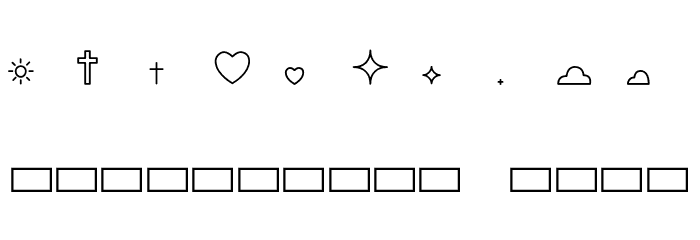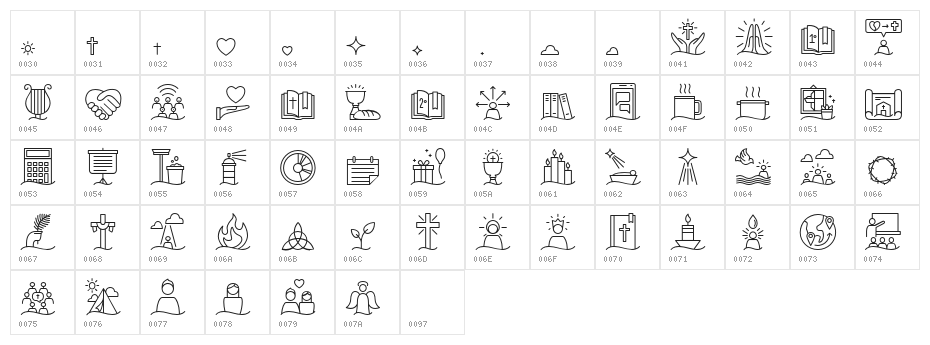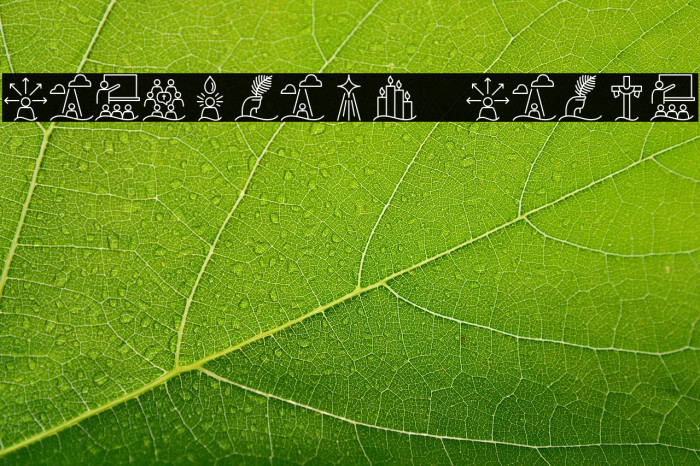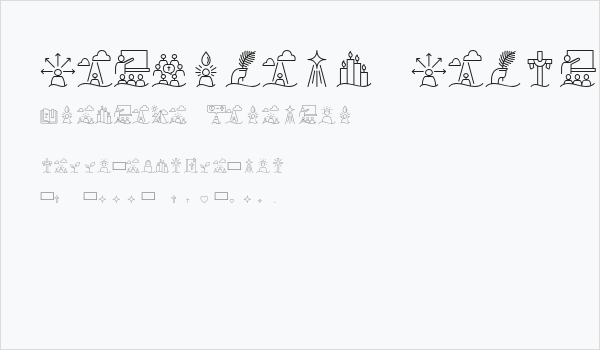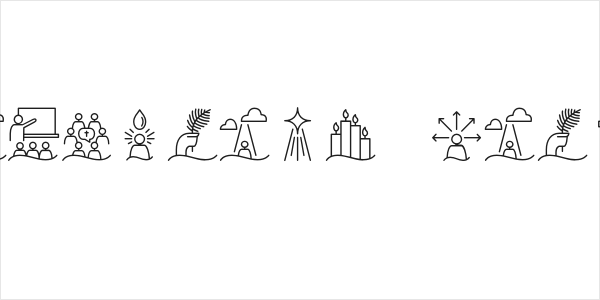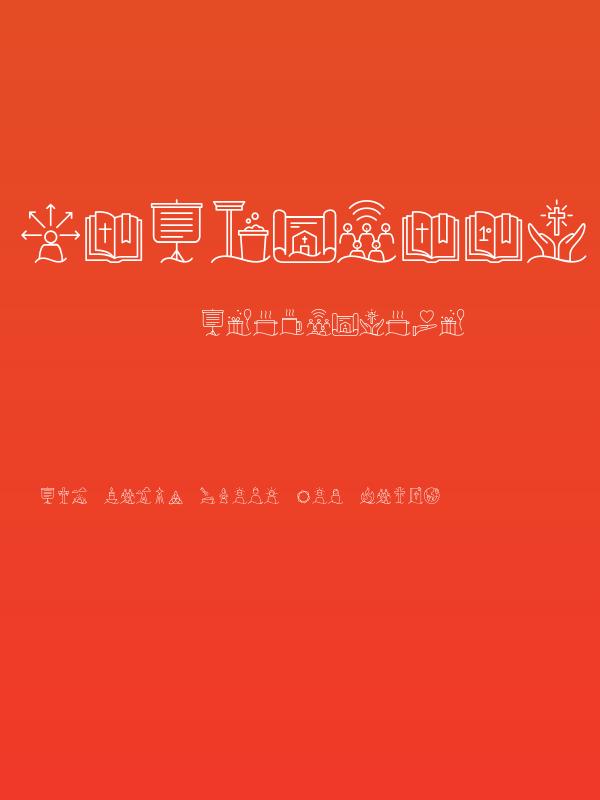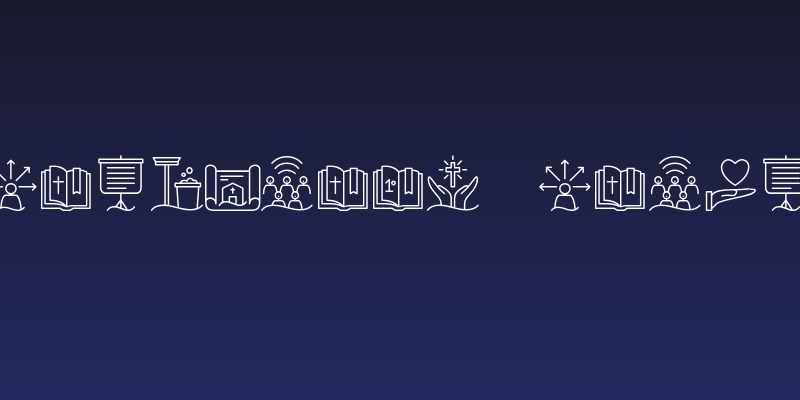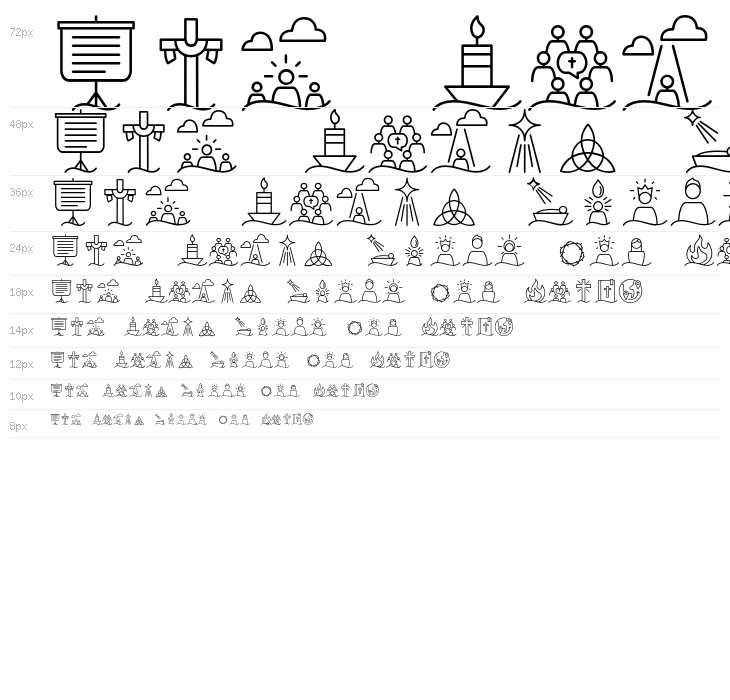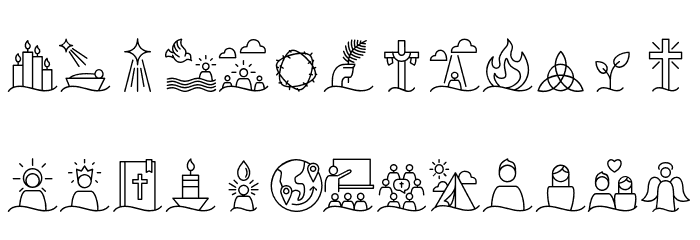
Liturgica Light Font
Liturgica Light Description
A collection of minimalist, line-art religious and spiritual icons with consistent stroke weight and rounded corners, featuring symbols such as books, candles, crosses, people, and nature elements.
| Overall Style | Modern, Minimalist, Decorative |
| Use Case | Icons, Logos, Infographics, Visual aids |
| Proposed Projects | Church bulletins, religious websites, educational materials, event programs, presentation slides, faith-based branding. |